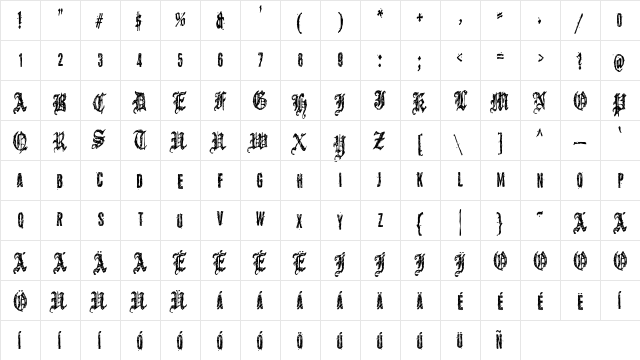
5 Regular
| Foundry | Bumbayo Font Fabrik 2008 |
Design Context for 5 Typeface
5 is a composed and adaptable typeface that performs quietly and consistently across a wide range of design contexts.